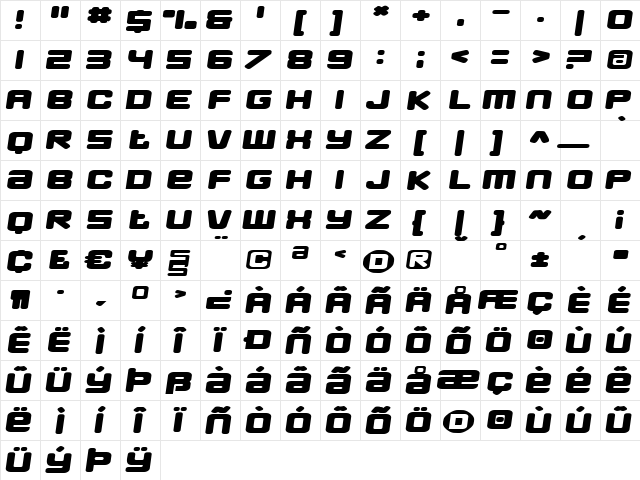
Pimpster Regular Font Preview
Pimpster Regular
Pimpster Regular Font Details
Design Context for Pimpster Typeface
Pimpster is a composed and adaptable typeface that performs quietly and consistently across a wide range of design contexts.